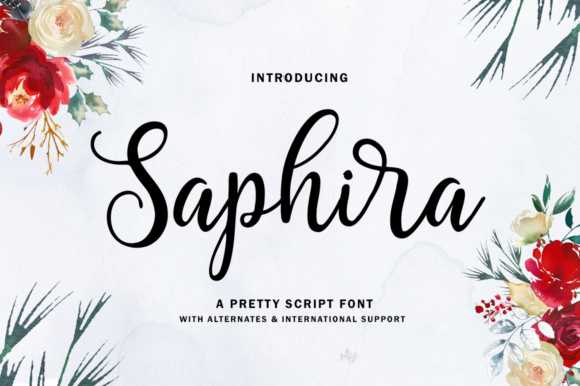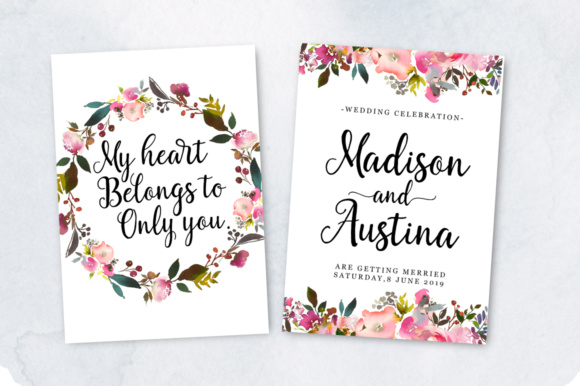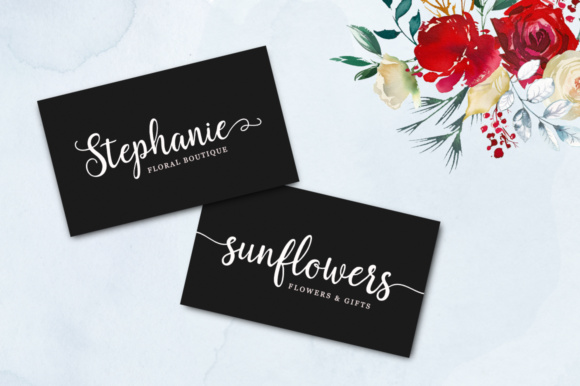
About Saphira Font
Saphira Script is a modern pretty font, organic, dynamic and energetic sytle.Can used for various purposes. such as the title, signature, logo, correspondence, wedding invitations, letterhead, signage, labels, newsletters, posters, badges, etc.
Saphira is a modern and pretty script font, dynamic and full of energetic style. This font can be used in a variety of ways, and looks great as the focal point to creative projects.